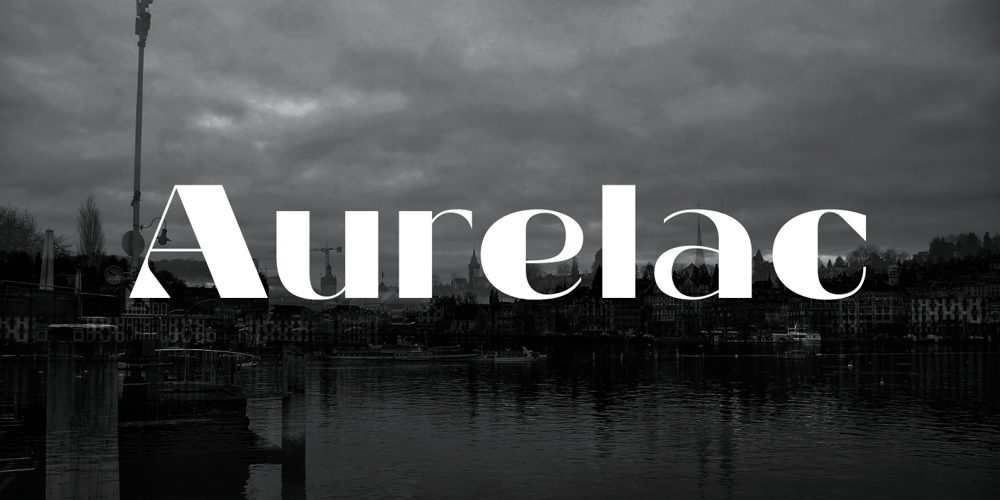
Aurelac
Aurelac font
Aurelac Font Family was designed by Eugene Bunin and published by Harvester Type. Aurelac contains 1 styles and family package options. Aurelac – is a font that was inspired by the cover of the book “Learn to sew” by authors Egorova R. I. and Monastyrnaya V. P.This is a contrasting font that has unusual serifs and combines elegance and brutalism. Many uppercase letters are bold, while lowercase letters are lighter, which gives a more unusual effect to the text and the beginning of the sentence.It is perfect for headlines, posters, logos, banners, covers and much more.If you find errors in the font, kerning, then a huge request to write to the address: bunineugene@gmail.com